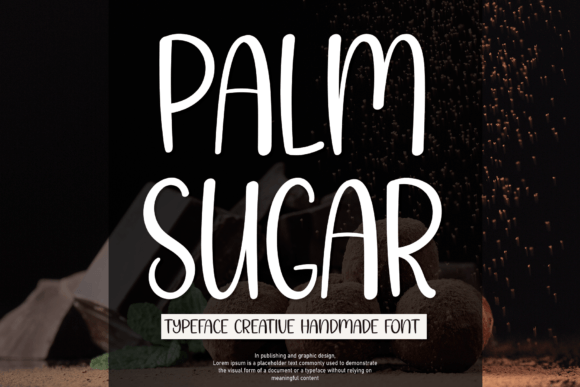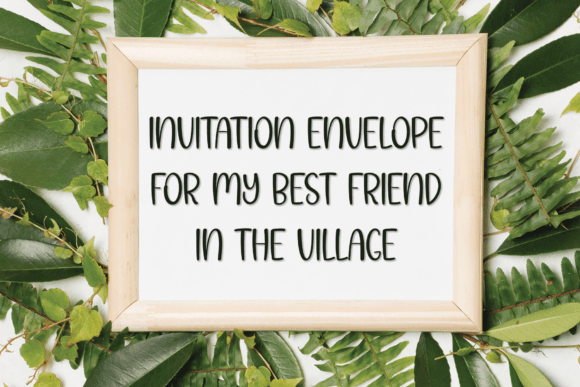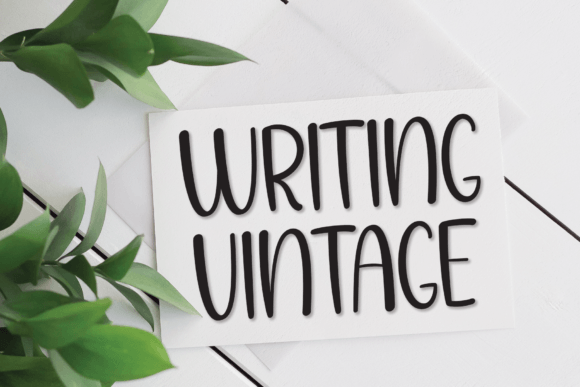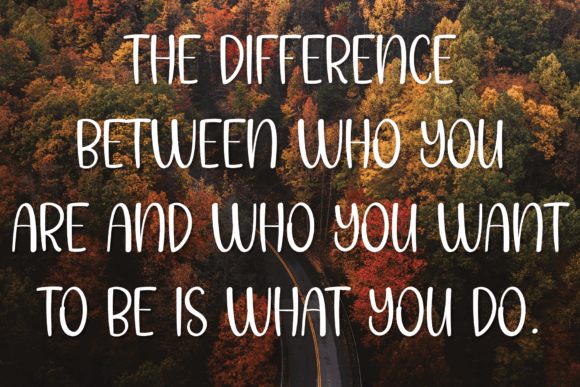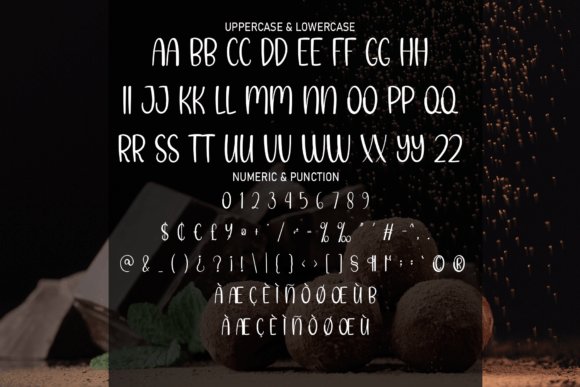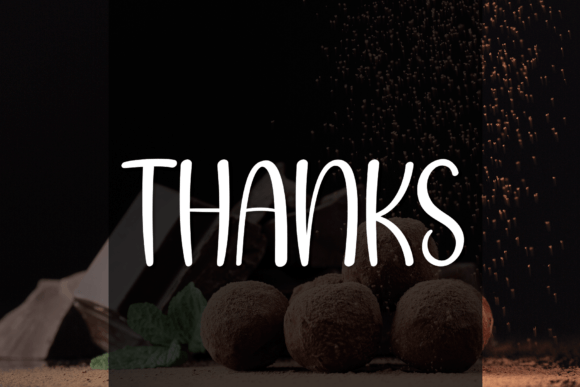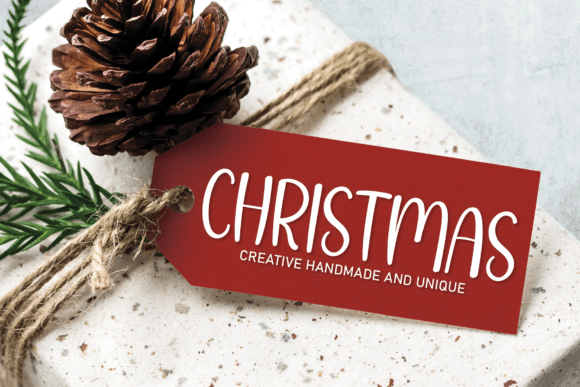
Palm Sugar Font
About Palm Sugar Font
Palm Sugar is a cool and casual handwritten font that brings a fresh, modern vibe to any project. Its relaxed, friendly style makes it the perfect choice for creatives who want to add a personal touch to their designs. Whether you’re designing for crafts, digital content, or print materials, Palm Sugar is a versatile font you will love using again and again.
A Laid-Back Style for Any Project
Palm Sugar stands out with its simple, smooth letterforms. The handwritten look feels approachable and natural. This makes it a great fit for everything from greeting cards to product packaging.
If you’re working on a DIY project or creating social media graphics, Palm Sugar adds personality without overwhelming your message. Use it on labels, t-shirt designs, posters, or stickers to make your words look warm and inviting.
Designed for Versatility
One of the best things about Palm Sugar is how adaptable it is. The clean and casual strokes work well at any size. It stays crisp and legible on small tags, business cards, and large banners alike.
It pairs beautifully with bold sans-serif fonts for a modern look or combines nicely with delicate scripts for a playful feel. No matter your style, Palm Sugar is easy to blend into your creative vision.
Because it’s so versatile, this font is also perfect for personal projects. Use it on scrapbook pages, journals, or planners. Add it to your crafts to give them a handmade, authentic feel.
A Designer’s Favorite
The font supports multiple languages, which means you can create projects for clients and audiences around the world. If you sell digital products or printed goods, Palm Sugar makes your creations look polished and professional.
Elevate Your Brand and Content
Looking to add charm to your branding? Palm Sugar works wonderfully for logos, business cards, and thank-you notes. Its handwritten style helps your brand feel approachable and genuine.
If you design content for blogs, YouTube thumbnails, or Instagram stories, this font’s casual look will help you stand out. Palm Sugar is also great for invitations, event signage, and personal stationery.
A Font You’ll Reach for Again and Again
Whether you’re an experienced designer or just starting out, Palm Sugar will quickly become a go-to font in your collection. Its combination of casual elegance and versatility makes it a smart choice for any project.